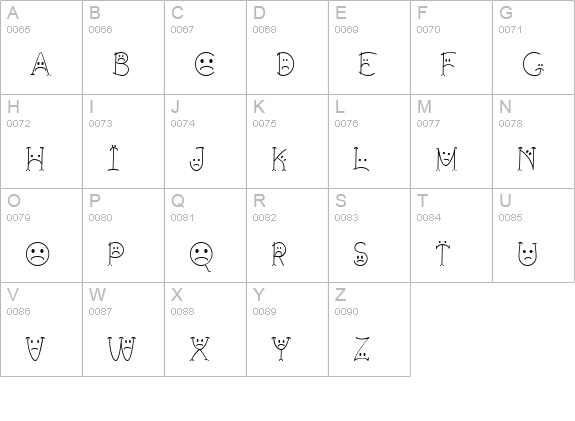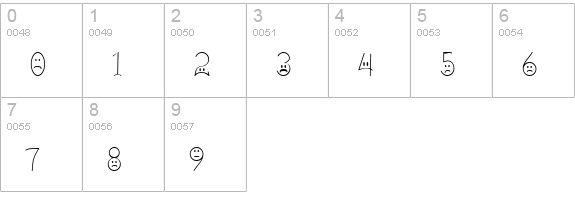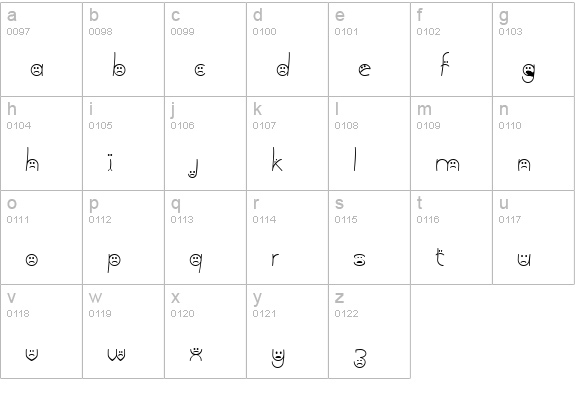
BringInTheFrowns Font Details
BringInTheFrowns font is a whimsical and playful typeface that is sure to bring a smile to your face. With its unique and quirky design, this font is perfect for adding a touch of fun to any project. The characters are bold and expressive, making them stand out on the page and grab the reader's attention. Whether you're designing a poster, logo, or social media graphic, BringInTheFrowns font will add a cheerful and lighthearted vibe to your work. Best of all, BringInTheFrowns font is completely free to download at FontsMarket.com. So go ahead and bring some joy to your designs with this delightful and charming typeface. Let your creativity shine with BringInTheFrowns font!